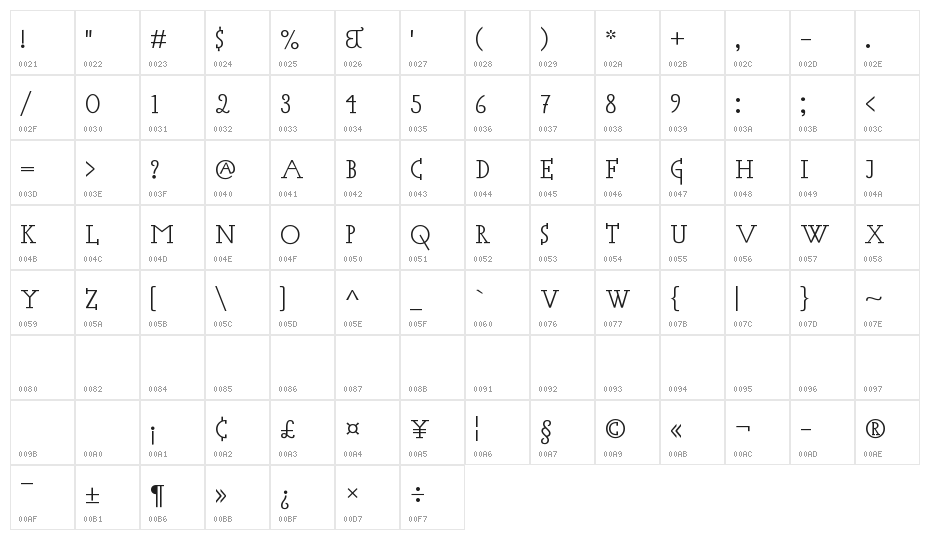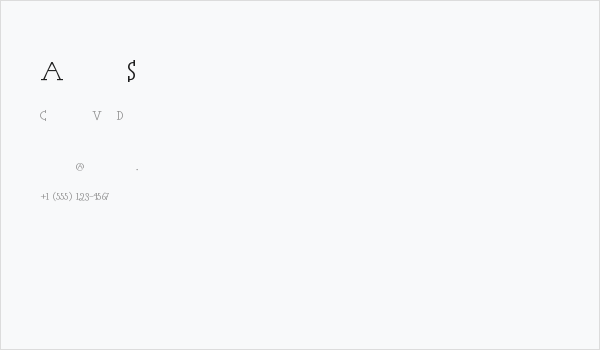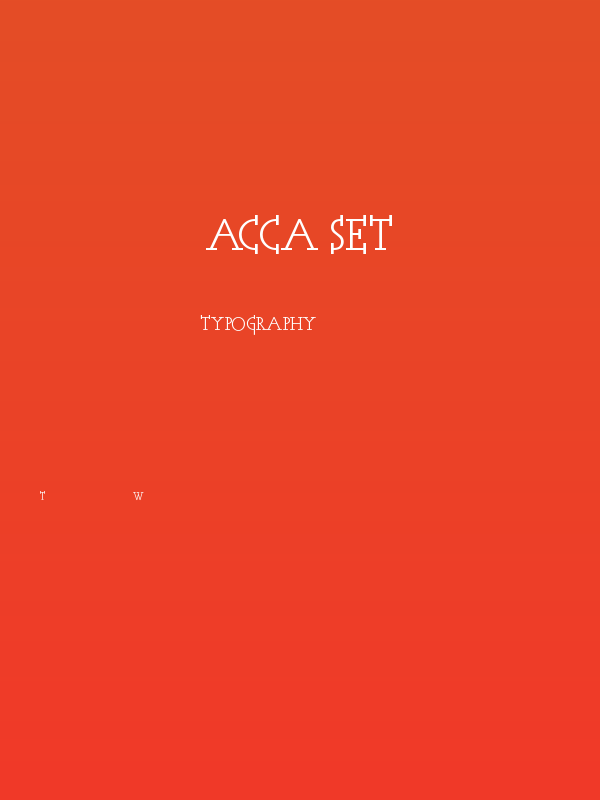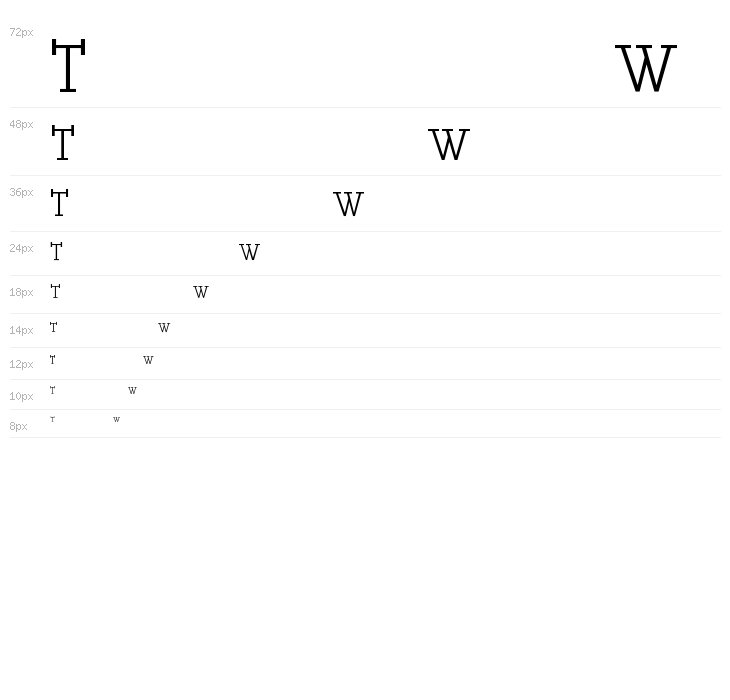
Acca Set Font
Acca Set Description
This font features a unique blend of geometric and classical elements, characterized by its sharp angles and clean lines. The uppercase letters exhibit a distinct style with consistent stroke widths and subtle serifs that add a touch of elegance. The numerals are clear and well-proportioned, ensuring readability. Special characters maintain the font's overall aesthetic, providing a cohesive look across all glyphs. The design is both modern and timeless, making it suitable for a variety of applications.
| Proposed Projects | Ideal for branding, editorial design, and modern web interfaces. |